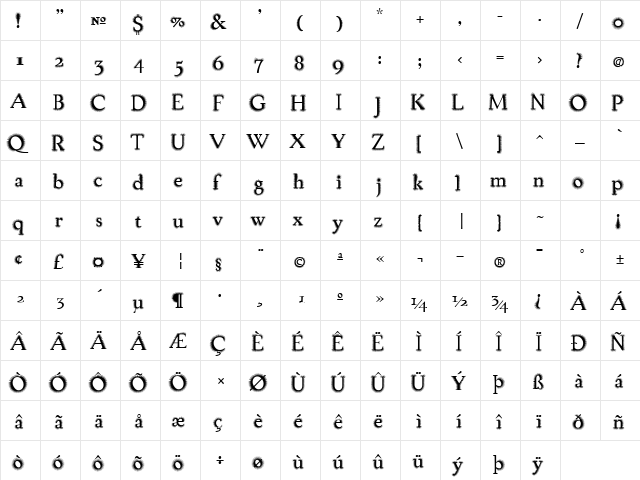
TaskHairy Regular
Design Context for TaskHairy Typeface
TaskHairy takes a measured approach to typography — its balanced proportions and neutral character make it a reliable workhorse for both digital and print work.